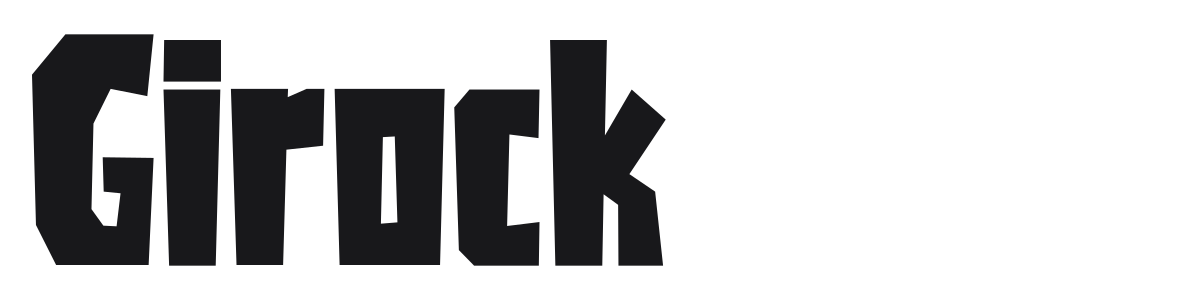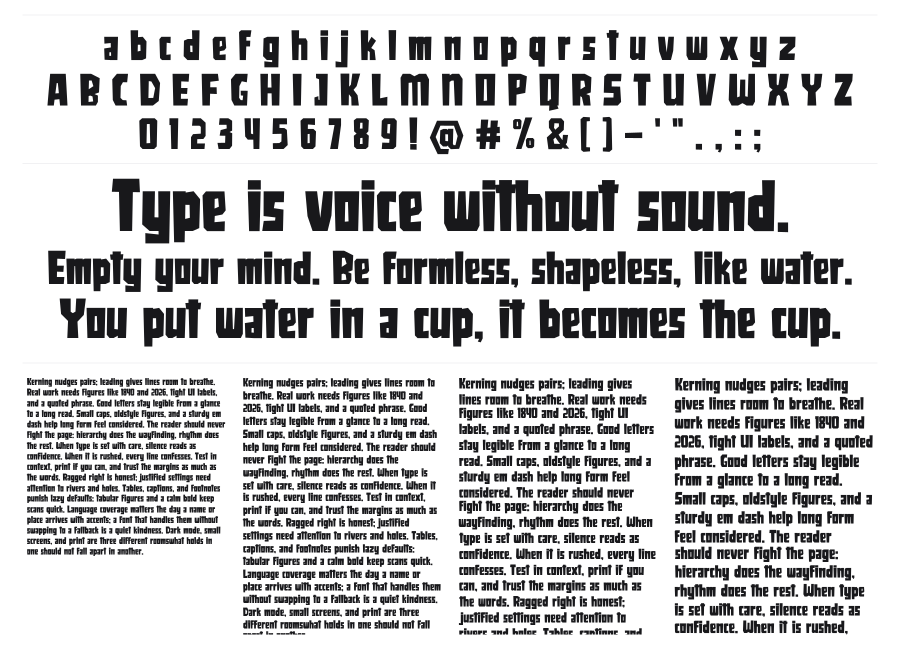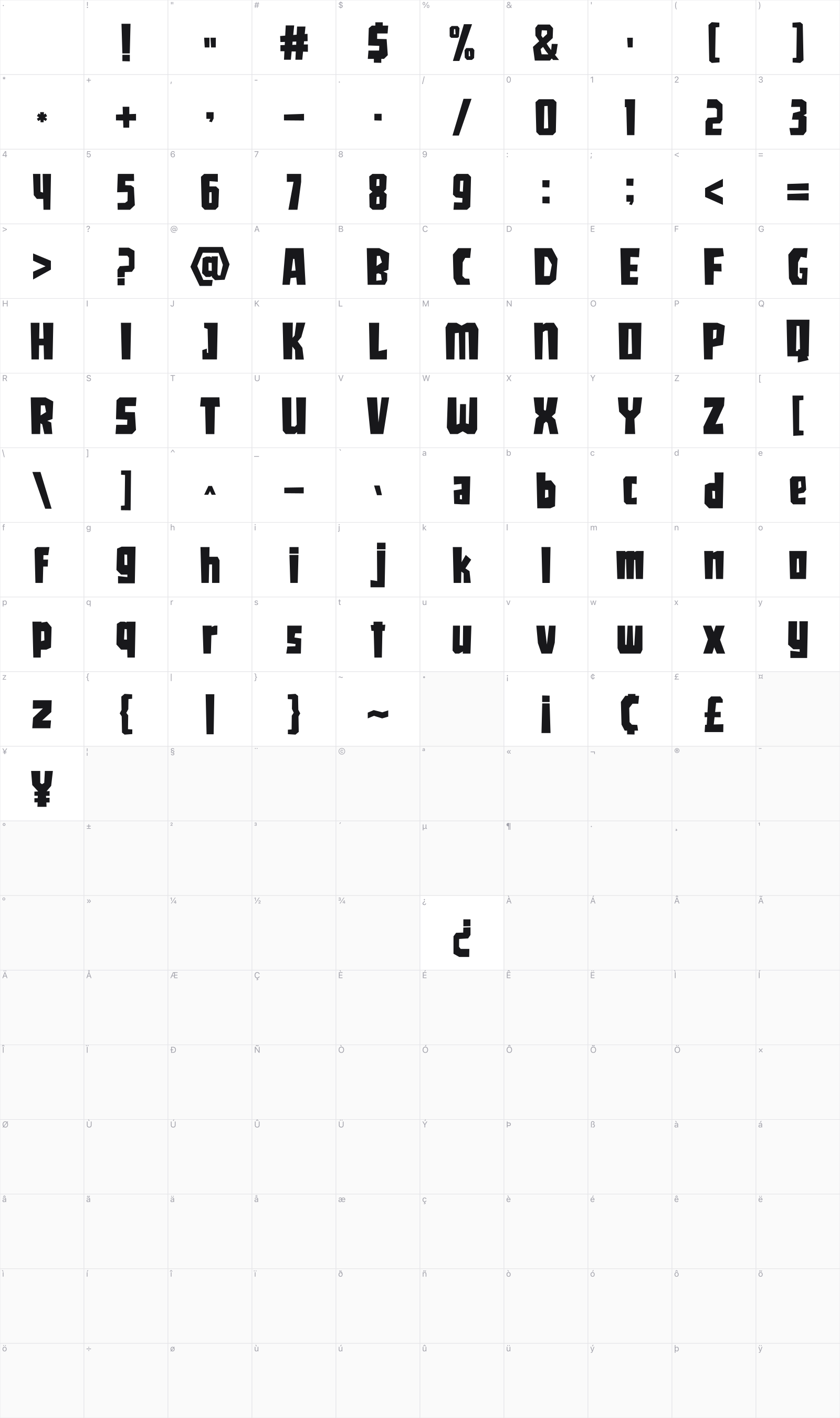
Girock
Girock is a heavy condensed display face with angular, notched cutouts carved into its thick strokes, giving it a raw, industrial edge. The blocky characters land somewhere between old-school punk typography and heavy metal logotypes. It commands attention at large sizes and reads instantly as bold and confrontational.